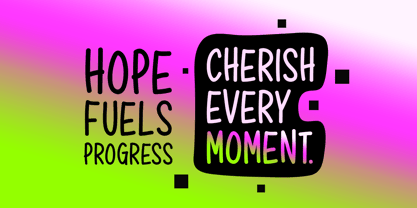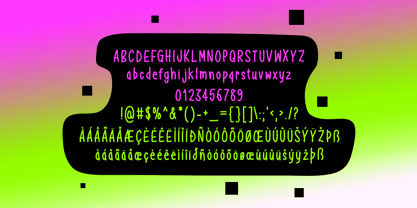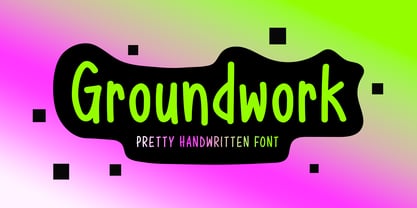
Groundwork
por Seemly Fonts
La familia tipográfica Groundwork fue diseñada por Md. Sohail Bhuiyan y publicada por Seemly Fonts. Groundwork contiene 1 estilos. Más información sobre esta familia
Groundwork is a newly created, exquisitely crafted handwritten font that embodies style and originality. This flexible font is a fantastic option for both digital and print design needs because it works well for a broad range of projects, such as stationery, logos, t-shirts, print materials, website headers, posters, album covers, and even picture frames.
Diseñadores: Md. Sohail Bhuiyan
Fundición actual: Seemly Fonts